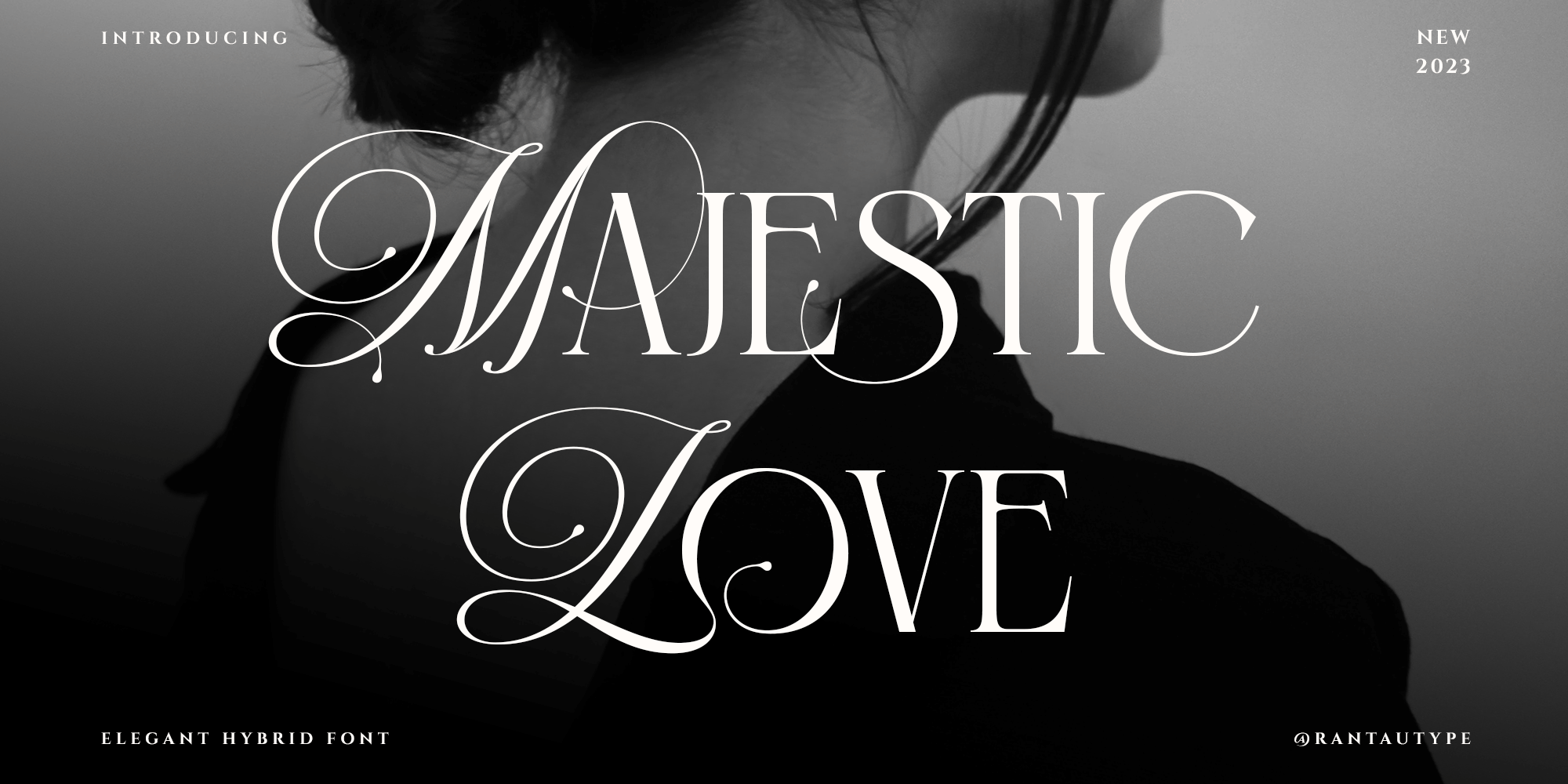
This enchanting typeface is an exquisite choice for projects that demand elegance, romance, and a truly heartfelt aesthetic. Imagine it gracing sophisticated wedding invitations, providing a bespoke feel to luxury brand packaging, or adding a touch of ethereal beauty to fine art prints. Majestic Love Font is also perfectly suited for designing unique personal logos, crafting graceful social media graphics for lifestyle influencers, or creating captivating titles for romantic novels and artistic endeavors. Its delicate strokes, flowing ligatures, and often beautiful swashes make it an ideal option for any design seeking to convey grace, authenticity, and a handcrafted quality, such as custom greeting cards, fine jewelry branding, or elegant event signage.
What makes Majestic Love Font so exciting? It embodies the artistry of calligraphic handwriting with a modern sensibility, often featuring fluid connections and decorative flourishes that can be activated to add a touch of sophistication and individuality. This font doesn’t just present text; it becomes an integral part of the design, evoking a sense of bespoke craftsmanship and timeless beauty. It's engineered to offer a distinct aesthetic that stands out, ensuring your message is not only read but also admired for its inherent elegance and sophisticated charm. The fluid movement and refined appearance of its letterforms make it particularly effective for brands that champion individuality, artistic expression, and a high-end, intimate identity. Its ability to convey warmth and personality makes it a favorite for anything from personalized gifts to heartfelt communications.
The Majestic Love Font family typically offers a comprehensive range of stylistic options to enhance its versatility, allowing for various levels of decorative complexity and visual expression. You can expect to find options such as Regular and Bold weights, along with an extensive set of alternative characters, contextual ligatures, and decorative swashes that can transform standard text into a unique calligraphic masterpiece. These stylistic sets are meticulously designed to retain the font's characteristic script essence while providing different degrees of visual embellishment. These variations enable designers to create truly unique and personalized compositions, using the base script for readability and decorative elements for added flair. The availability of multiple stylistic options ensures that Majestic Love Font can be seamlessly integrated into diverse design applications, from elegant print materials like certificates and invitations to sophisticated digital presentations, all while maintaining its unique and captivating charm.
Whether you're creating a memorable invitation for a special occasion, building a luxurious brand identity, or simply need a typeface that speaks with grace, charm, and a personal touch, Majestic Love Font Free Download is an outstanding choice. Its distinctive elegance and versatile nature will ensure your designs always leave a beautiful and lasting impression.